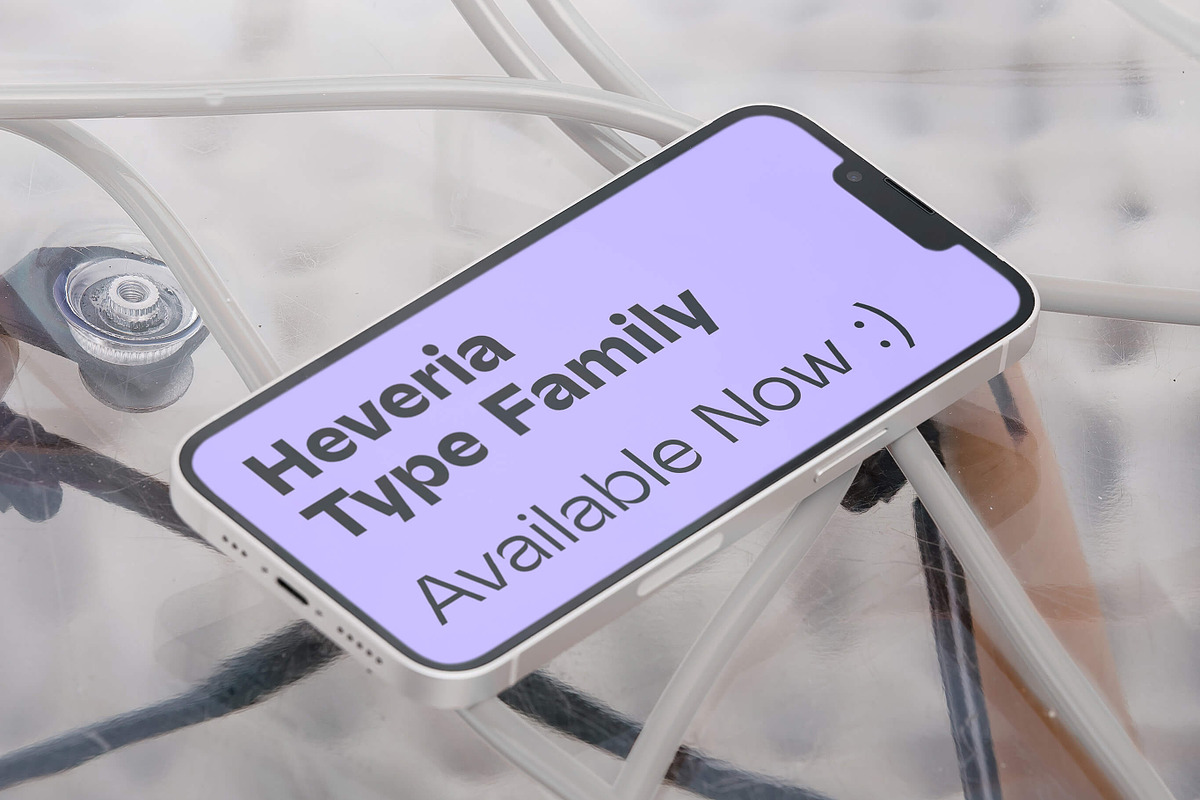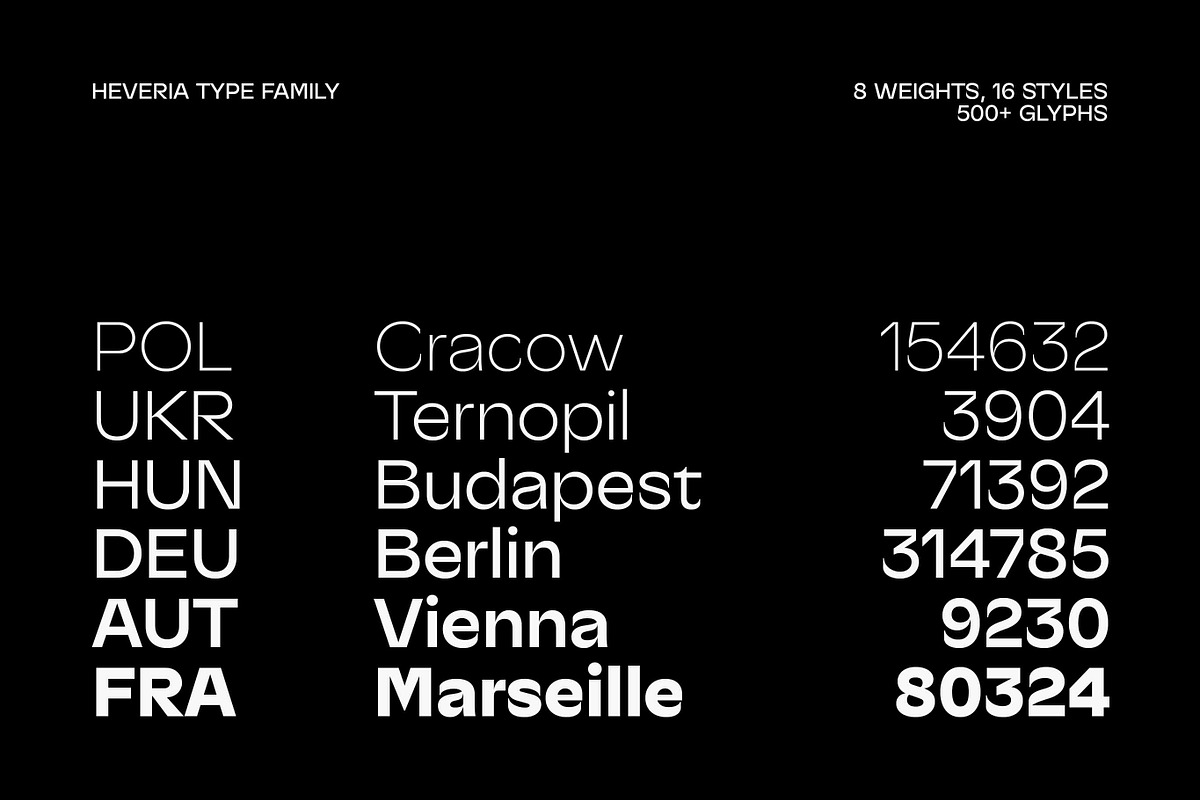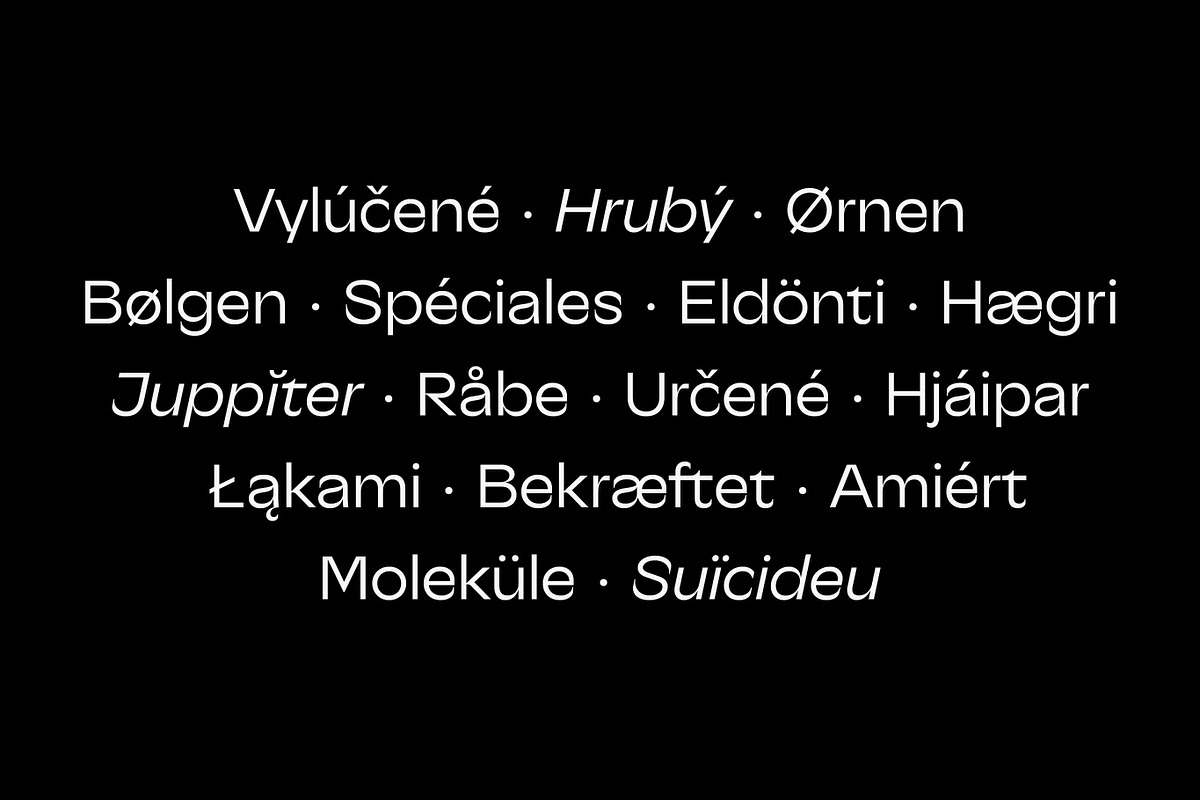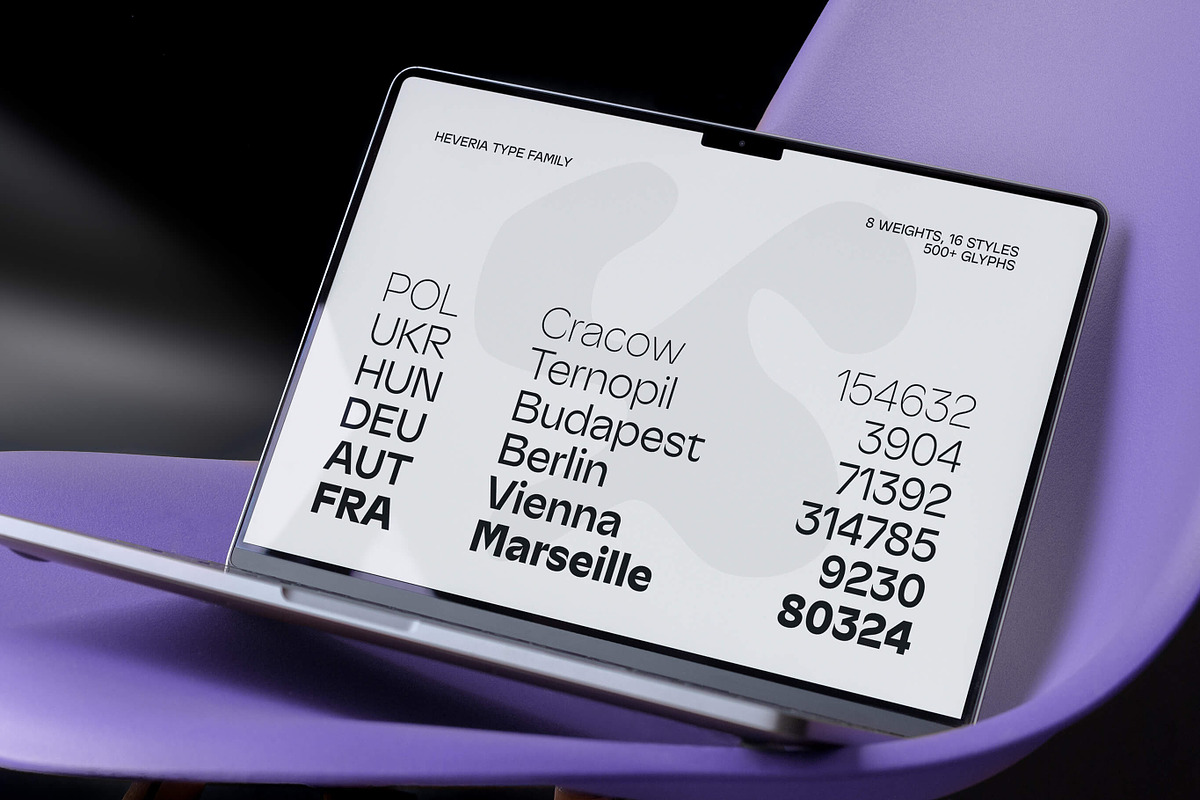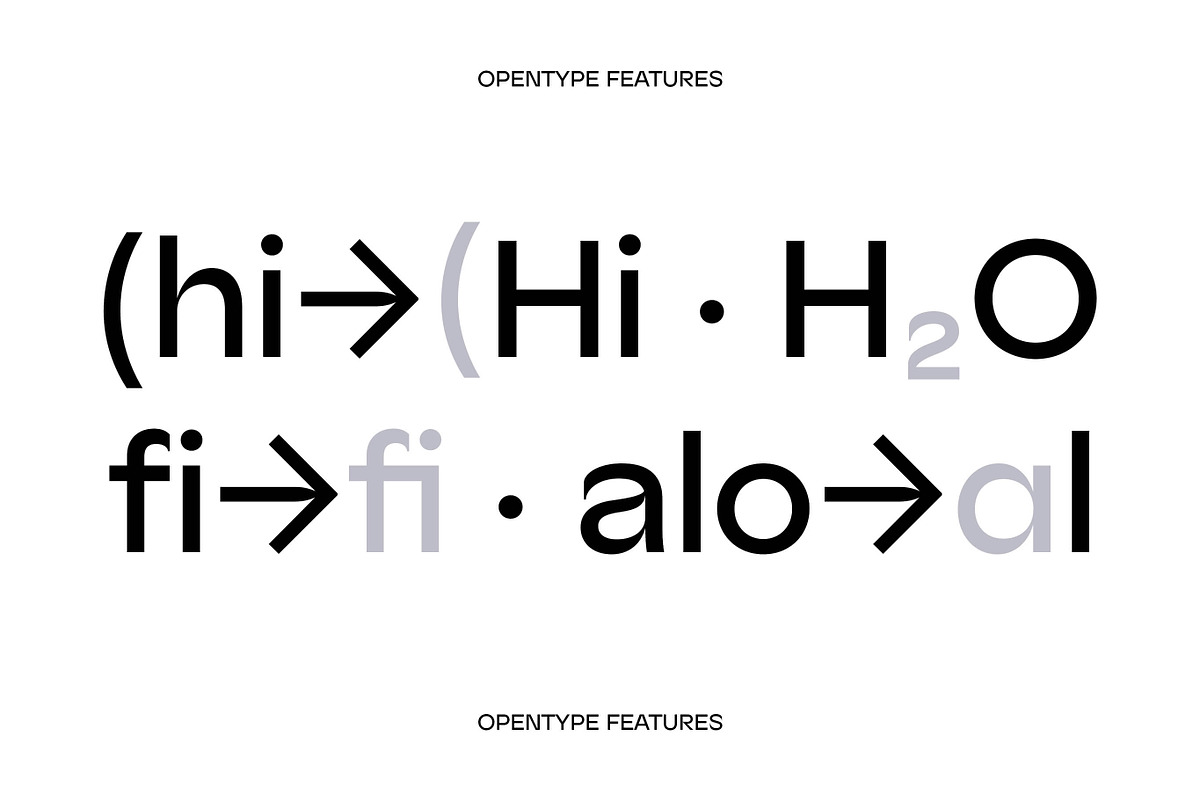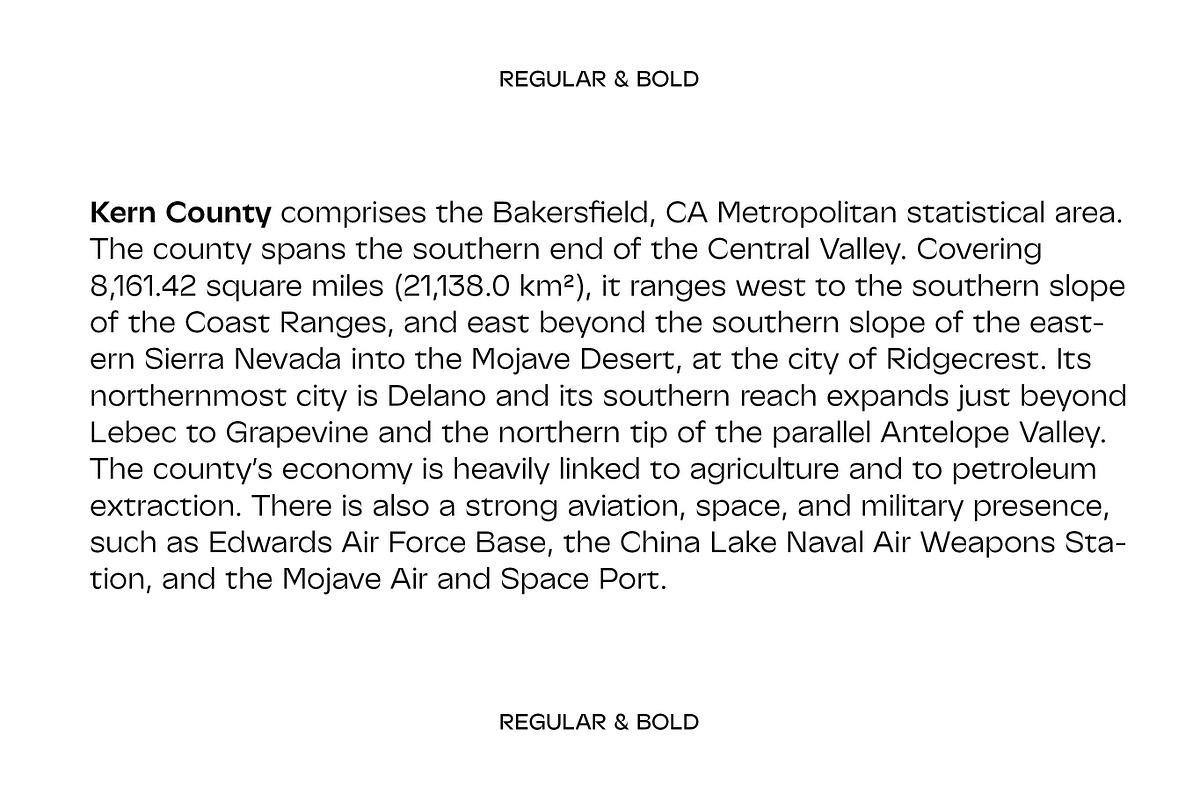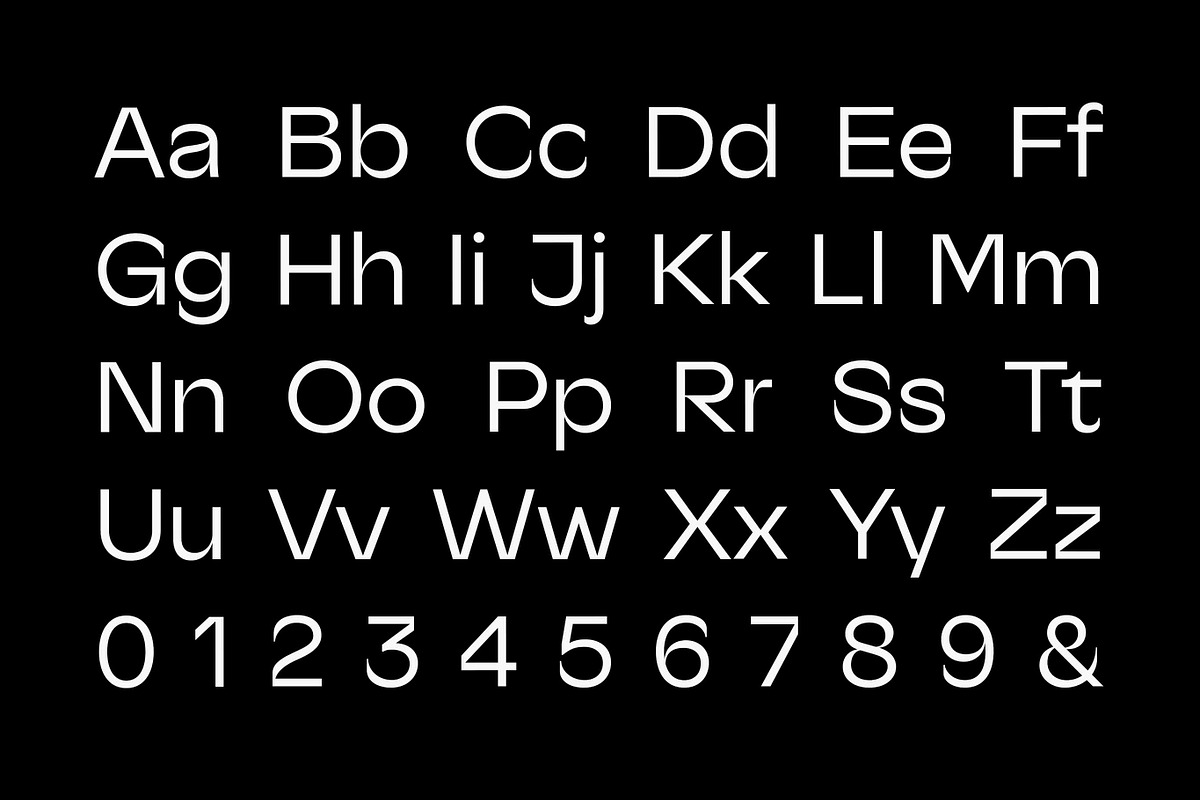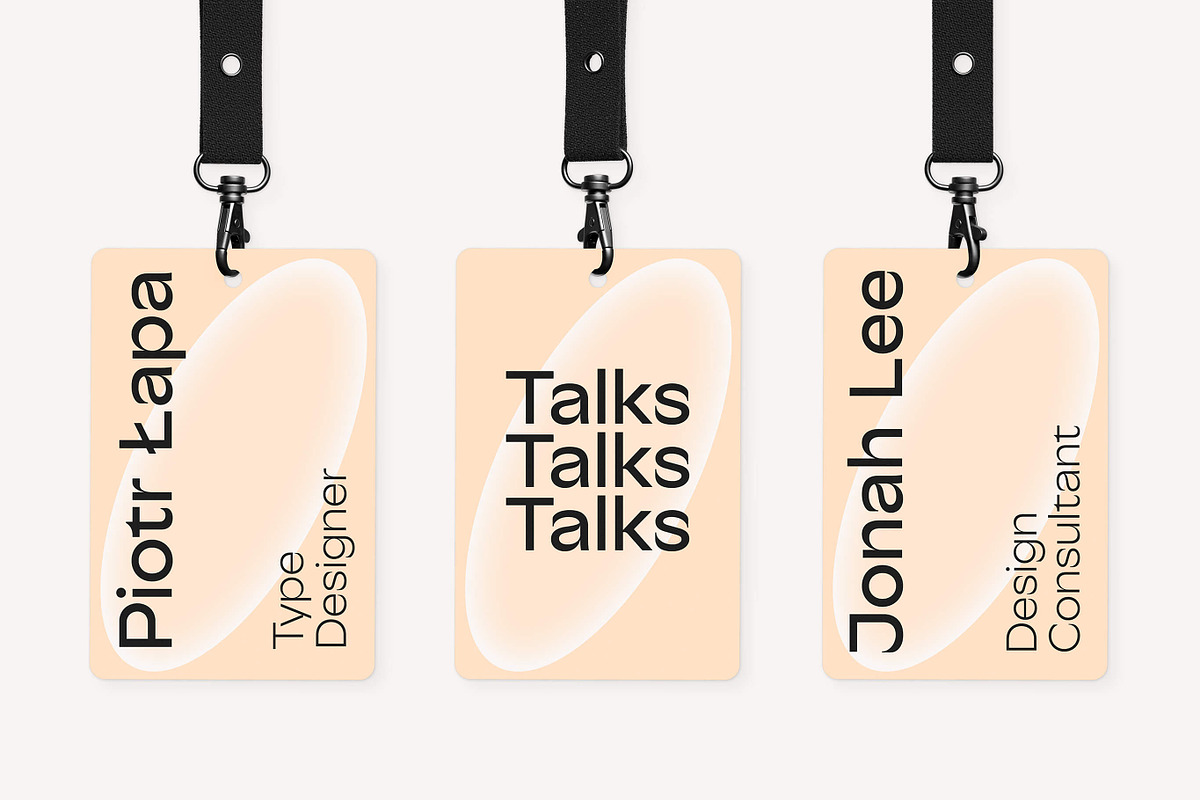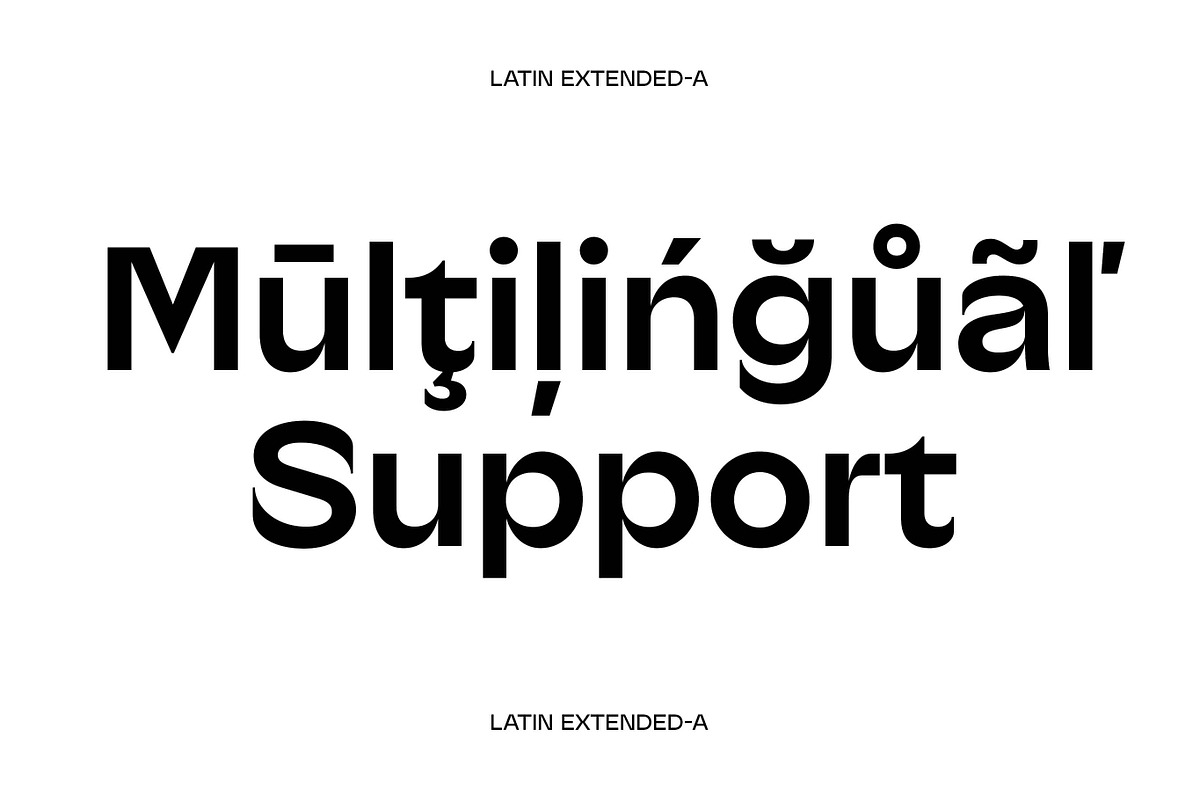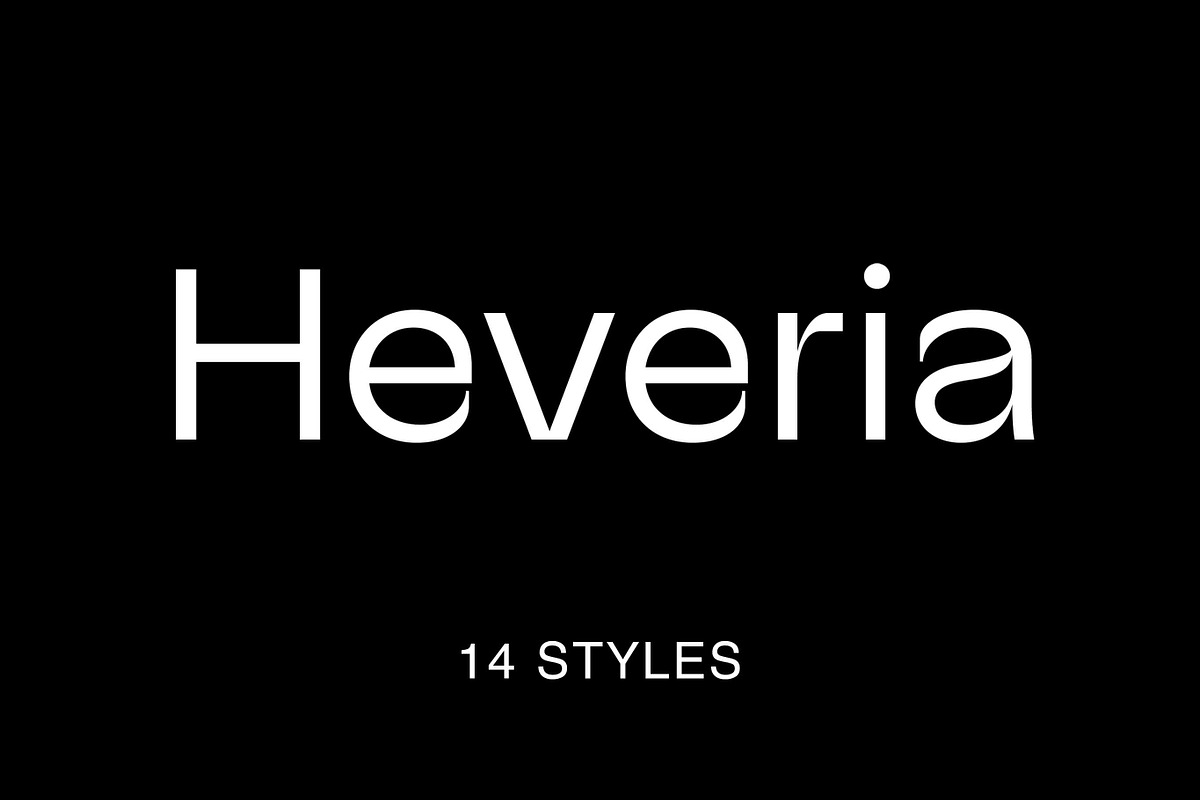
Heveria - Modern Sans Serif Family
Heveria is a modern, sans-serif type family featuring contemporary proportions and details. It includes both Roman and Italic styles, offering a total of 14 styles across 7 weights. Its simplicity and distinctiveness make it perfect for applications, websites, and branding, providing a versatile choice for strong visual identities and flexible design needs.
14 Styles, 7 Weights
Roman & Italics
Extended Latin Support
500+ Glyphs Set
OpenType Features
Precise Kerning